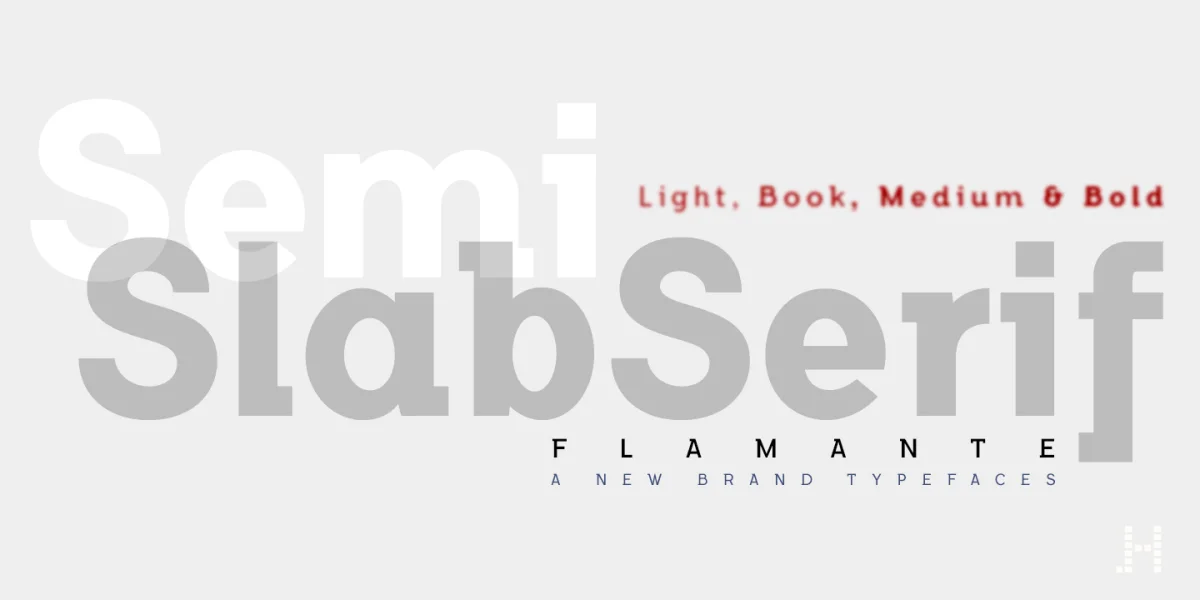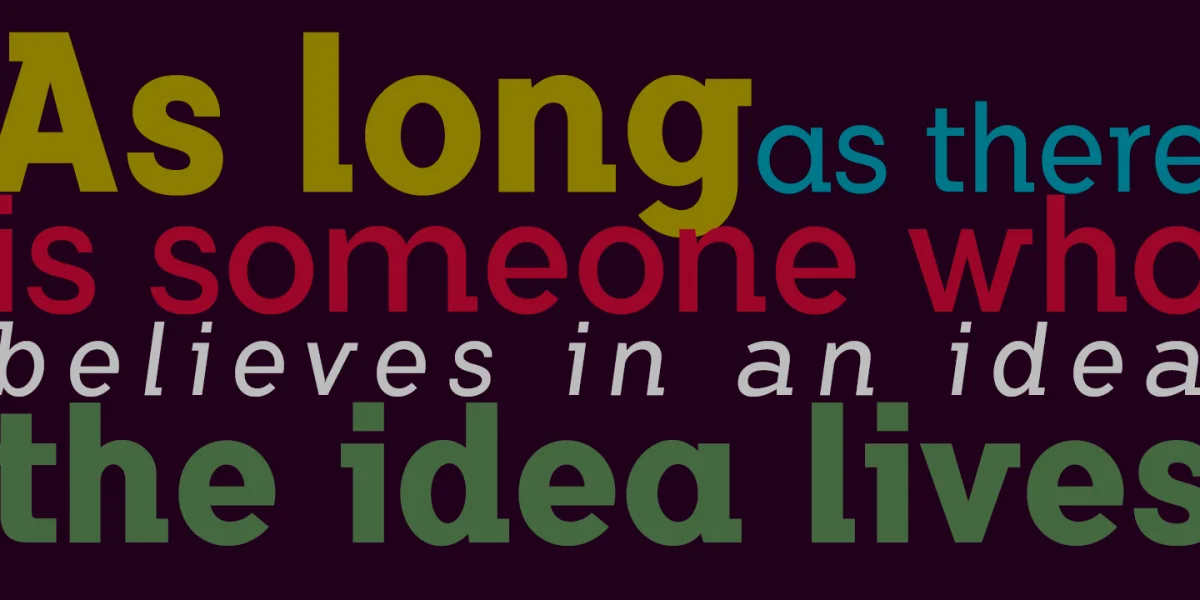
Flamante is a new family of SemiSlab Serif fonts with four weights: Light, Book, Medium and Bold and their corresponding italic versions.Swiss-style fonts built on a 4 × 6 building grid formed with 144 x 119 units, two digits taken from the fibonacci and Perrin sequences, these measures define the width and height of the vertical and horizontal antlers and the overall proportion of the font.
The metrics and kerning have been carefully set up for fluent reading in paragraph texts.